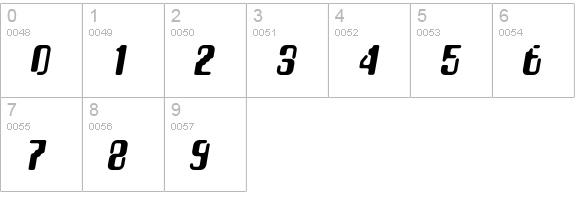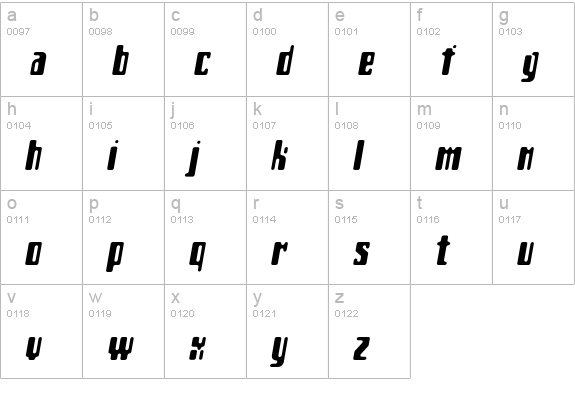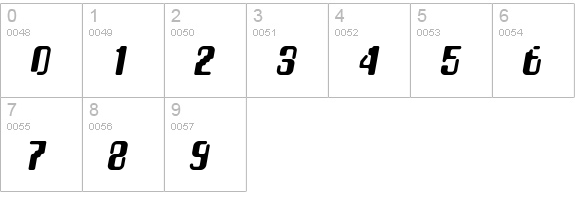
Matica-SupernormalOblique font is a striking and dynamic display typeface that exudes a sense of contemporary sophistication. Its unique oblique design adds a touch of avant-garde flair, making it perfect for projects that require a modern and edgy aesthetic. The sharp angles and sleek lines of this font create a powerful visual impact that will captivate any audience. What sets Matica-SupernormalOblique font apart is its versatility and adaptability to various design contexts. Whether used for branding, advertising, editorial design, or digital media, this font will surely make a statement and elevate the overall look of your project. Moreover, Matica-SupernormalOblique font is available for free download at FontsMarket.com, making it accessible to designers and creatives looking to add a touch of boldness and sophistication to their work without breaking the bank. Don't miss out on the opportunity to enhance your designs with this stunning and contemporary typeface.